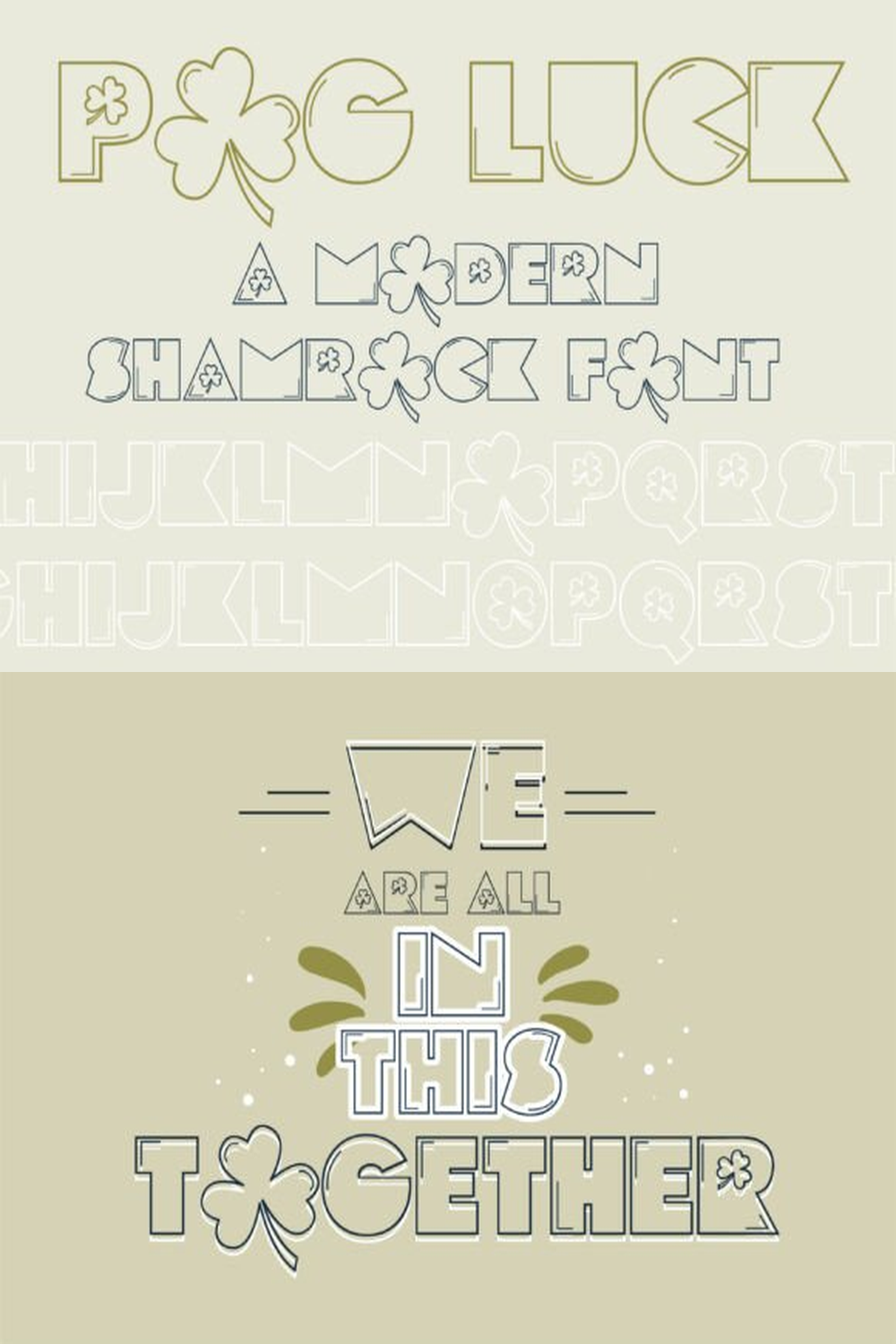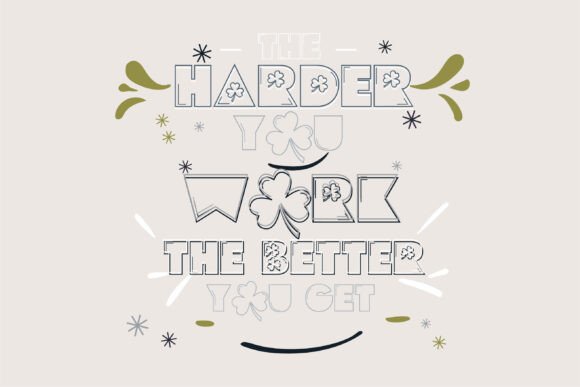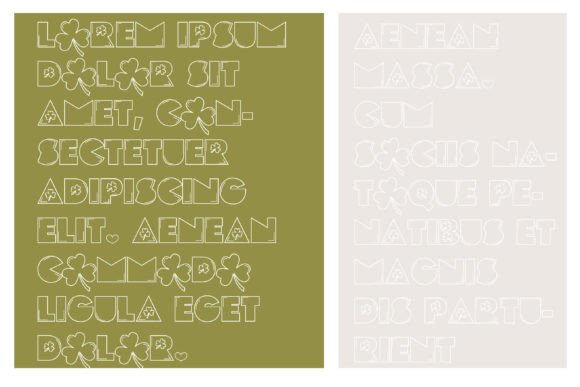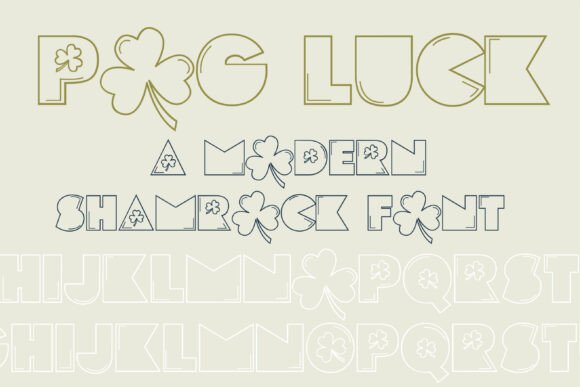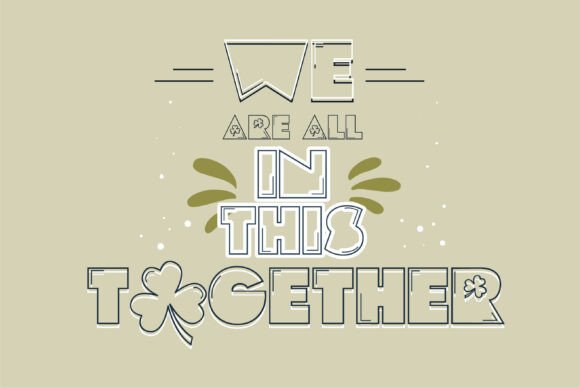
Pog Luck Font
About the Pog Luck Font
Unleash your creativity with Pog Luck Font, a versatile font perfect for a wide range of applications. This hand-crafted font is a video game style font sporting clover throughout.
Pog Luck’s playful, hand-crafted style makes it ideal for headlines, logos, short text blocks on posters or packaging, and social media graphics. Its informal nature lends itself well to projects with a youthful, fun energy – think video game branding, children’s books, or casual apparel. Avoid using it for body text or long paragraphs; its unique character would become visually overwhelming and difficult to read.
Pairing Pog Luck with a clean sans-serif like Open Sans for body copy creates a balanced contrast between playful display and legible text. For a more sophisticated look, consider pairing it with a classic serif font such as Garamond for a touch of elegance. A geometric sans-serif such as Futura would add a modern edge, contrasting the handmade feel of Pog Luck.
Its overall personality is undeniably bold and friendly, but maintains enough readability for short impactful statements.